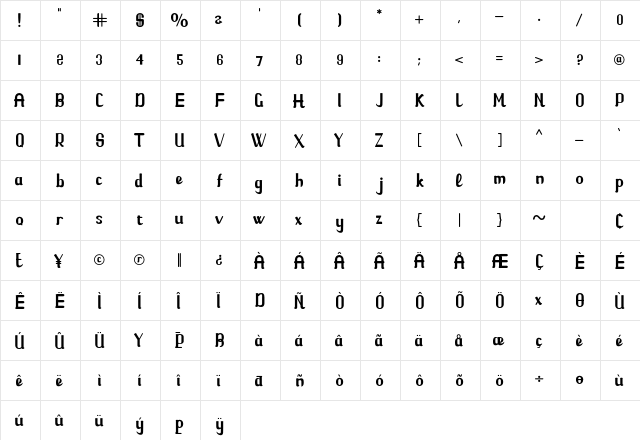
Hello Little Tiger Regular Font Preview
Hello Little Tiger Regular
Design Context for Hello Little Tiger Typeface
Hello Little Tiger takes a measured approach to typography — its balanced proportions and neutral character make it a reliable workhorse for both digital and print work.